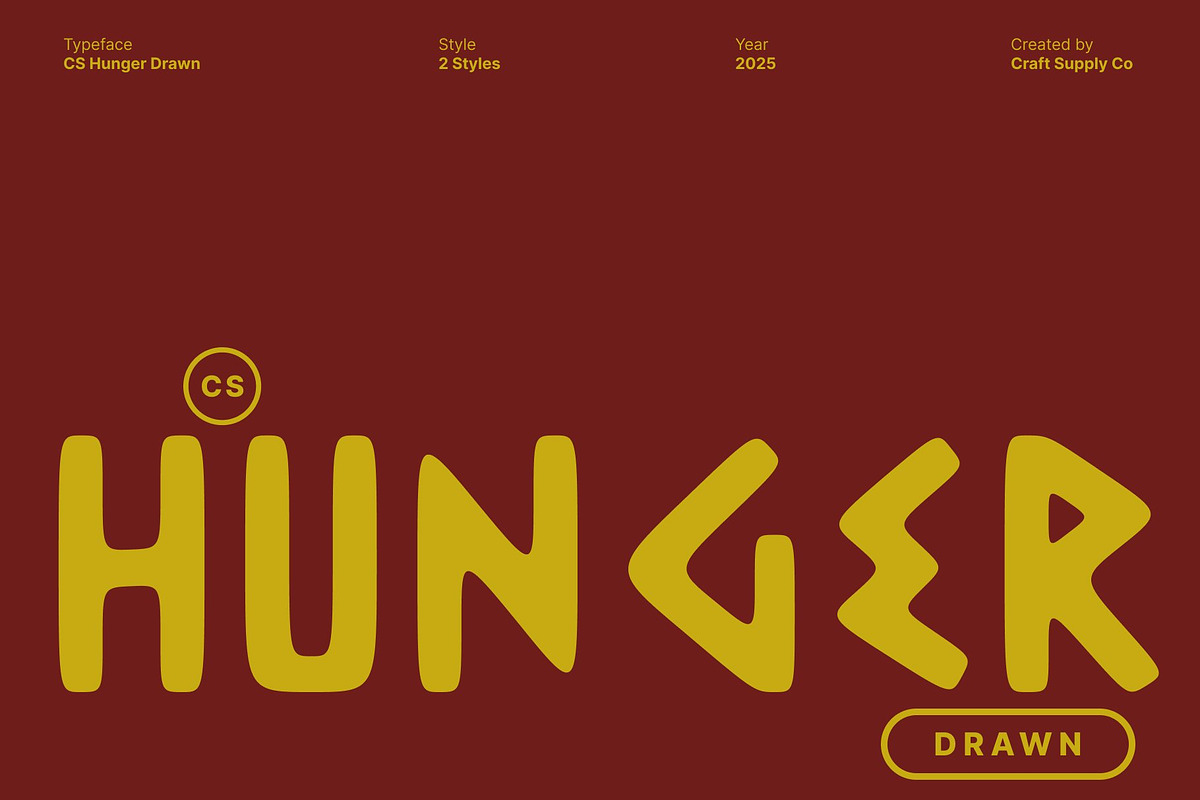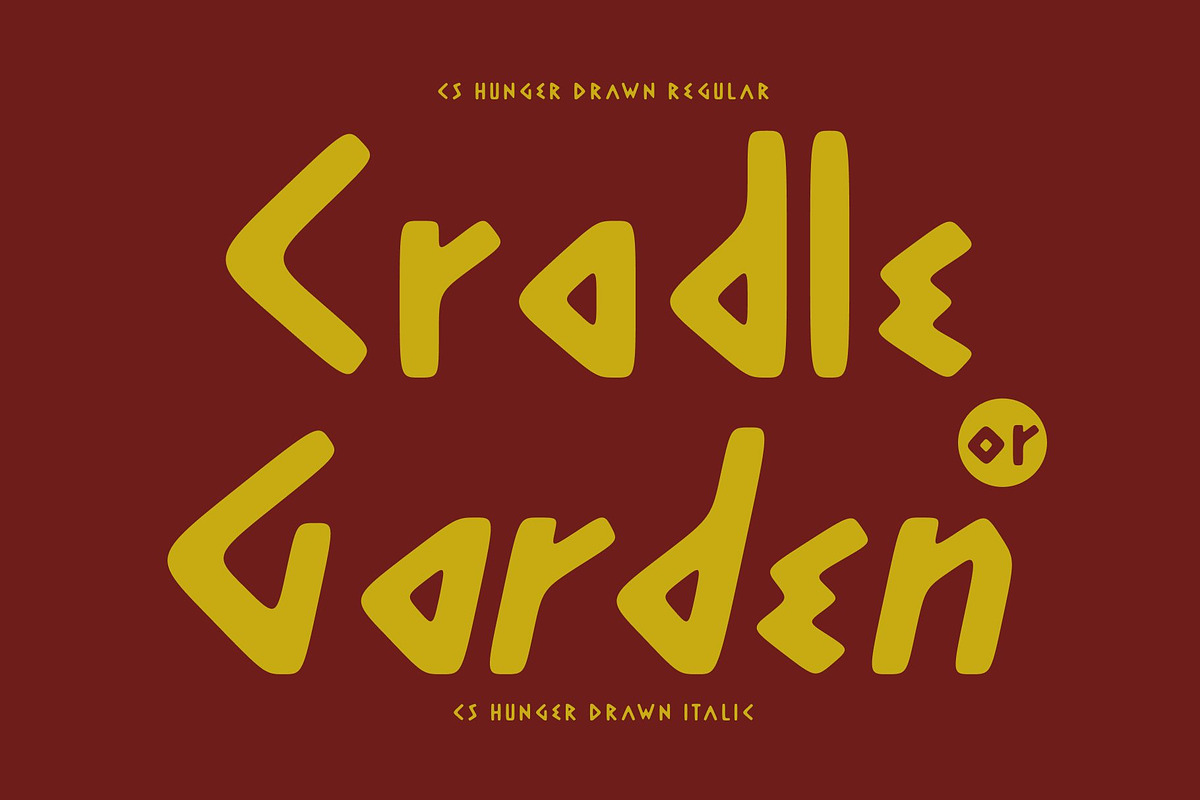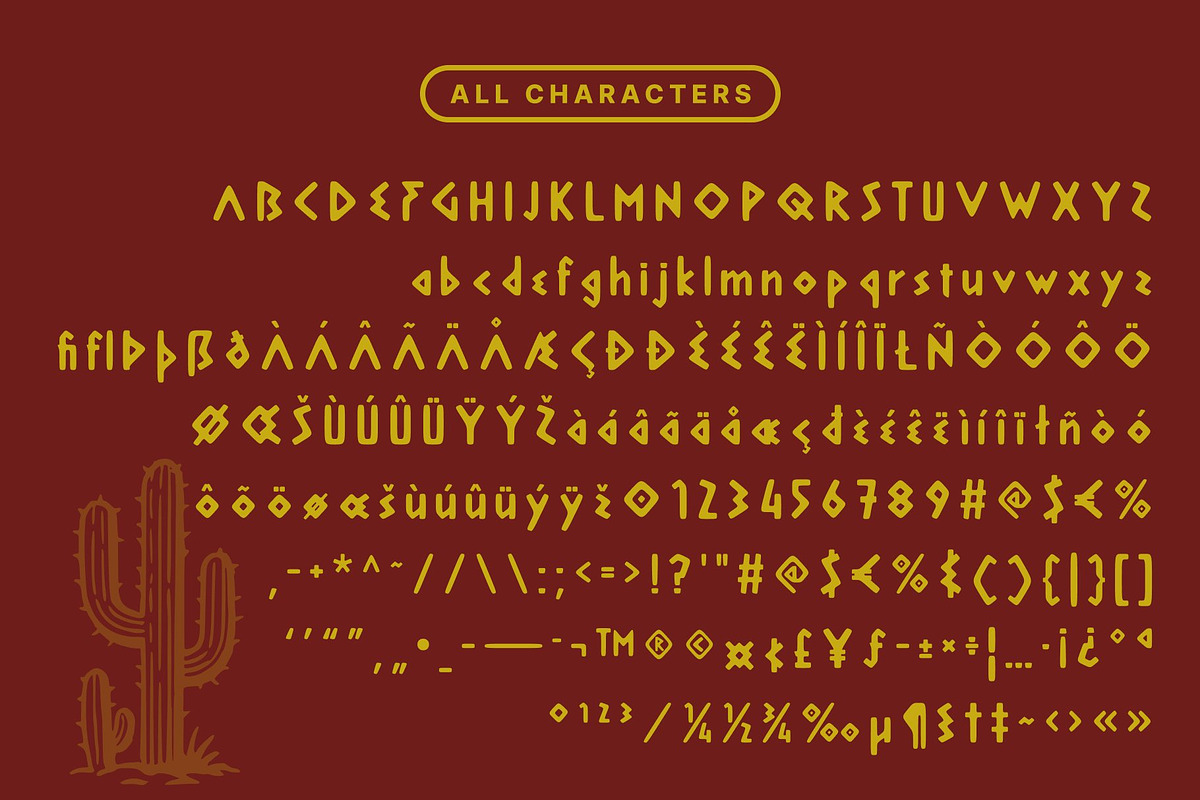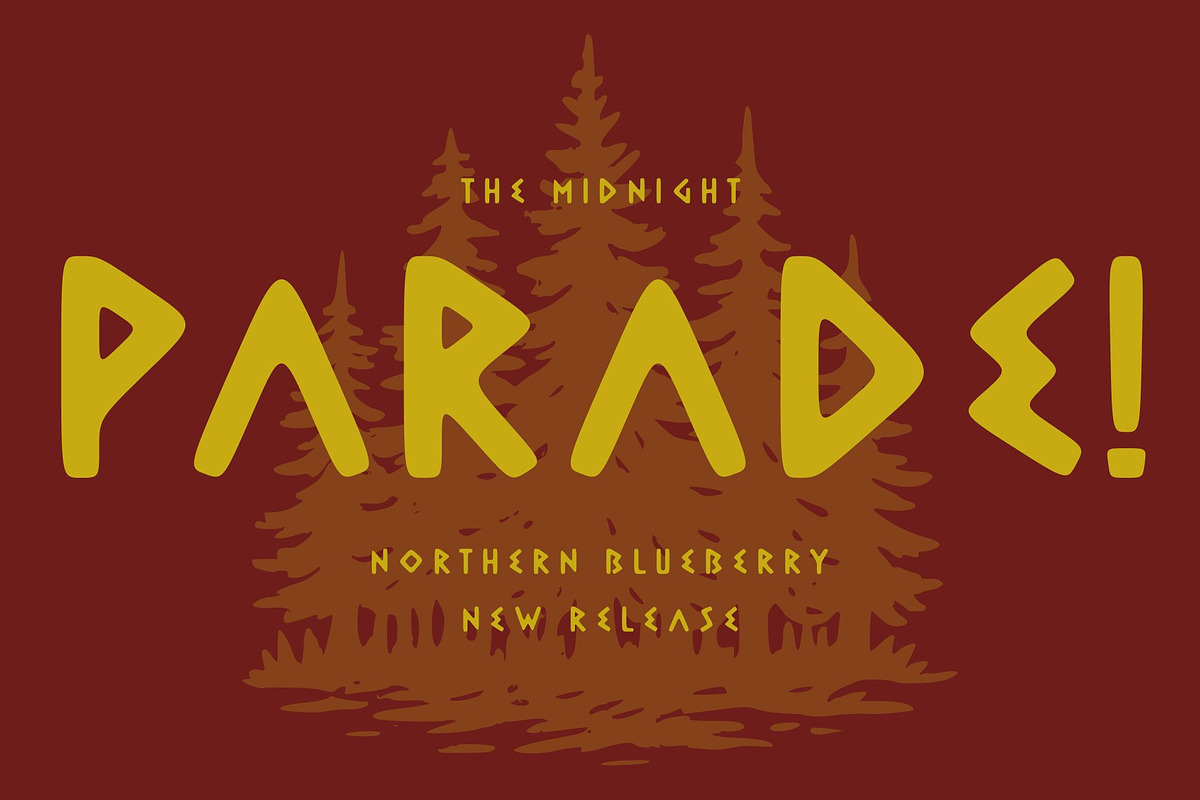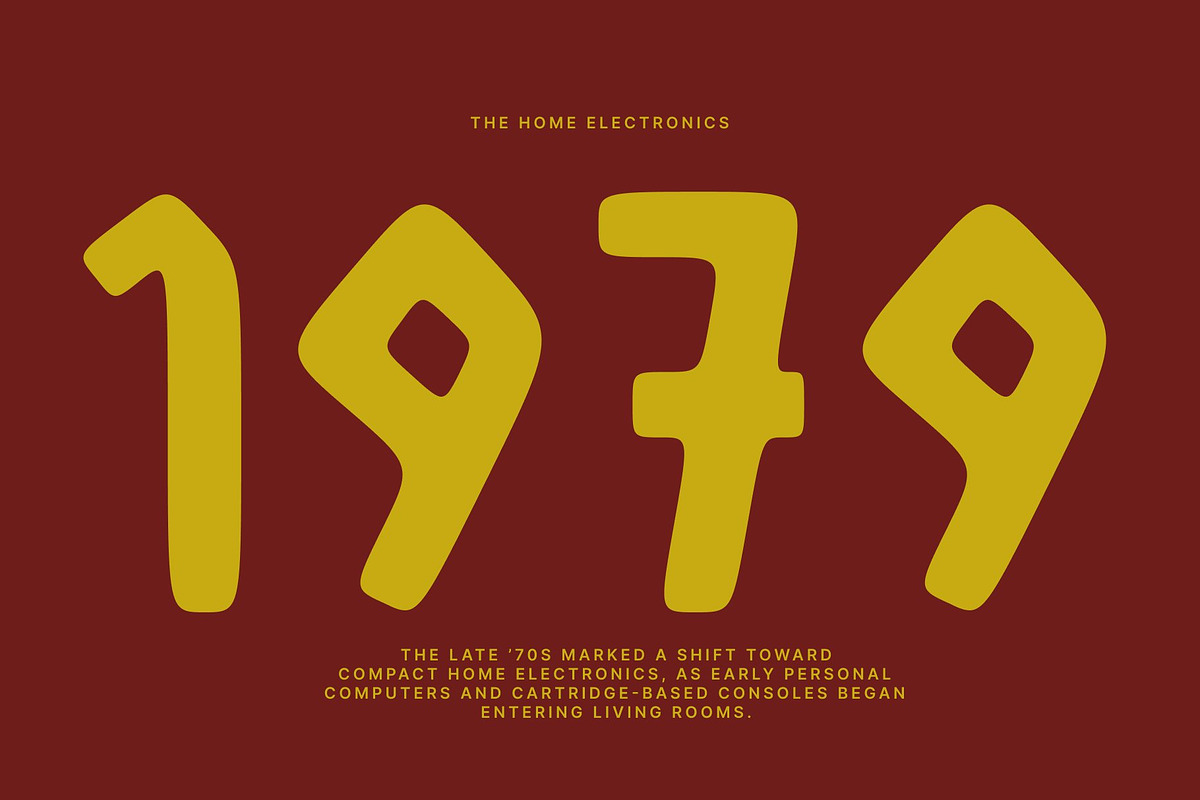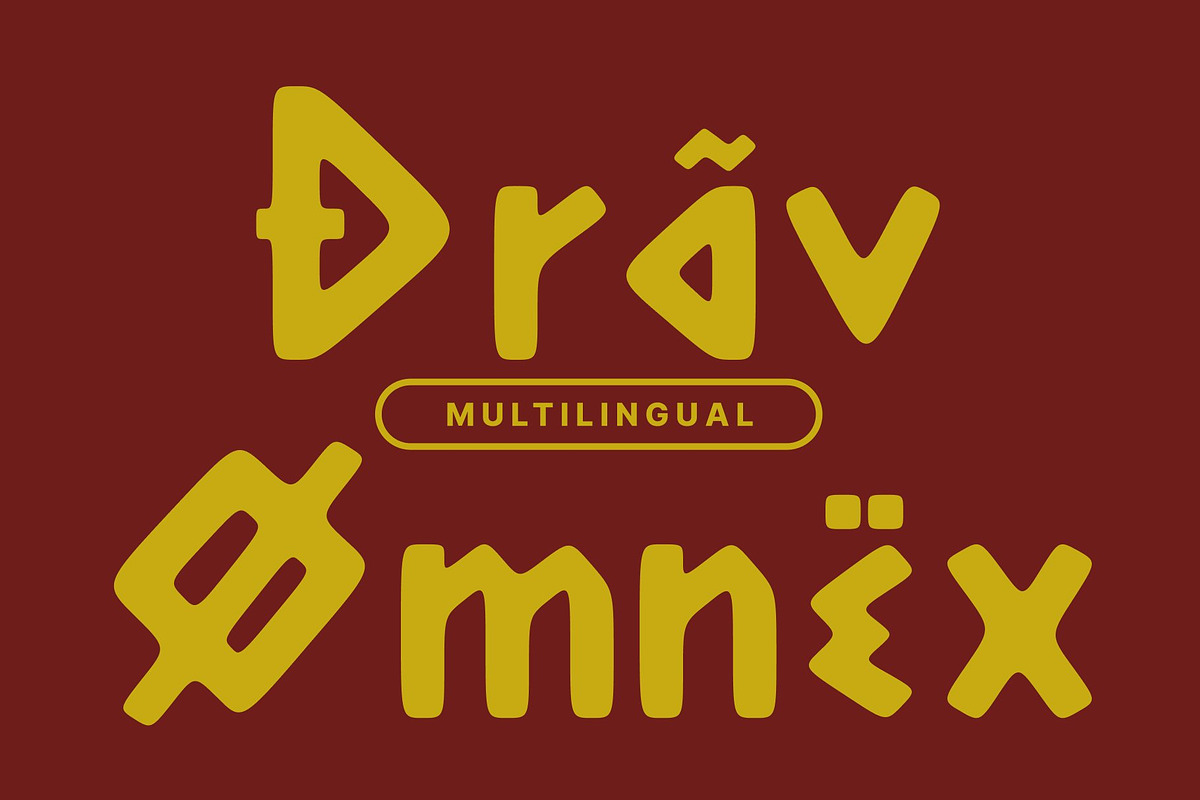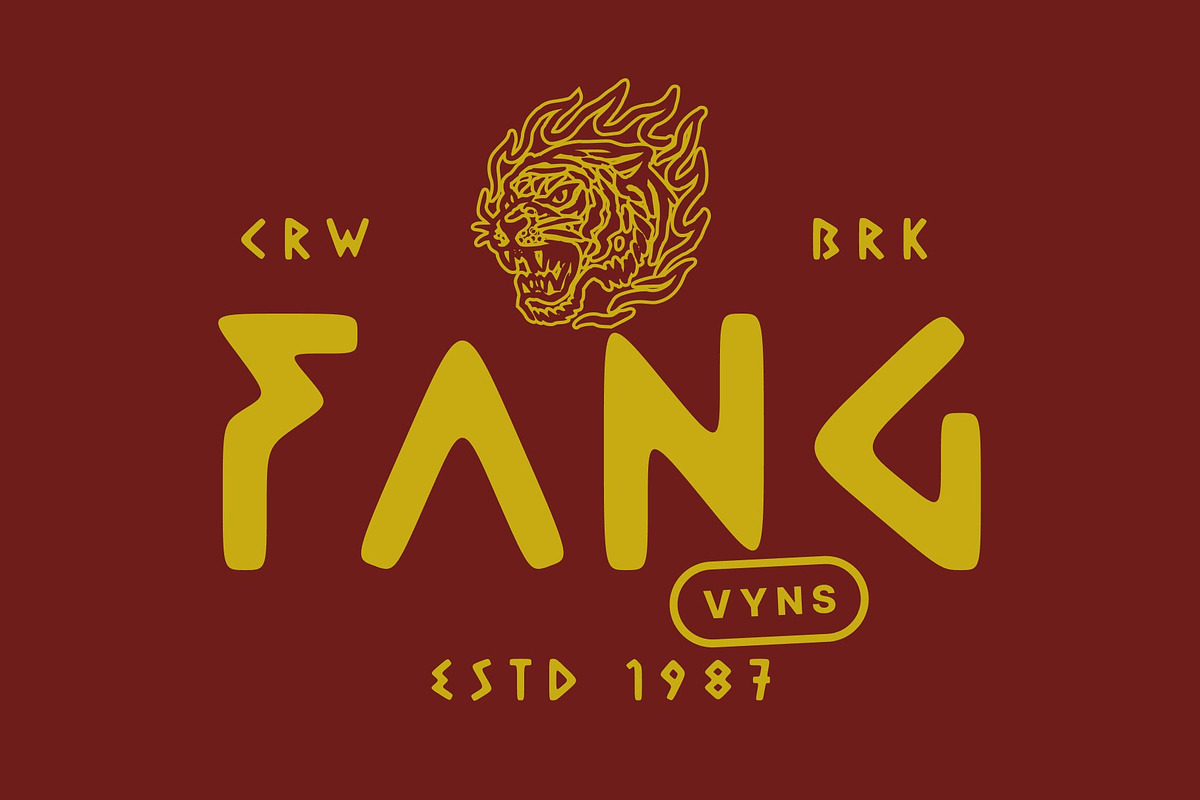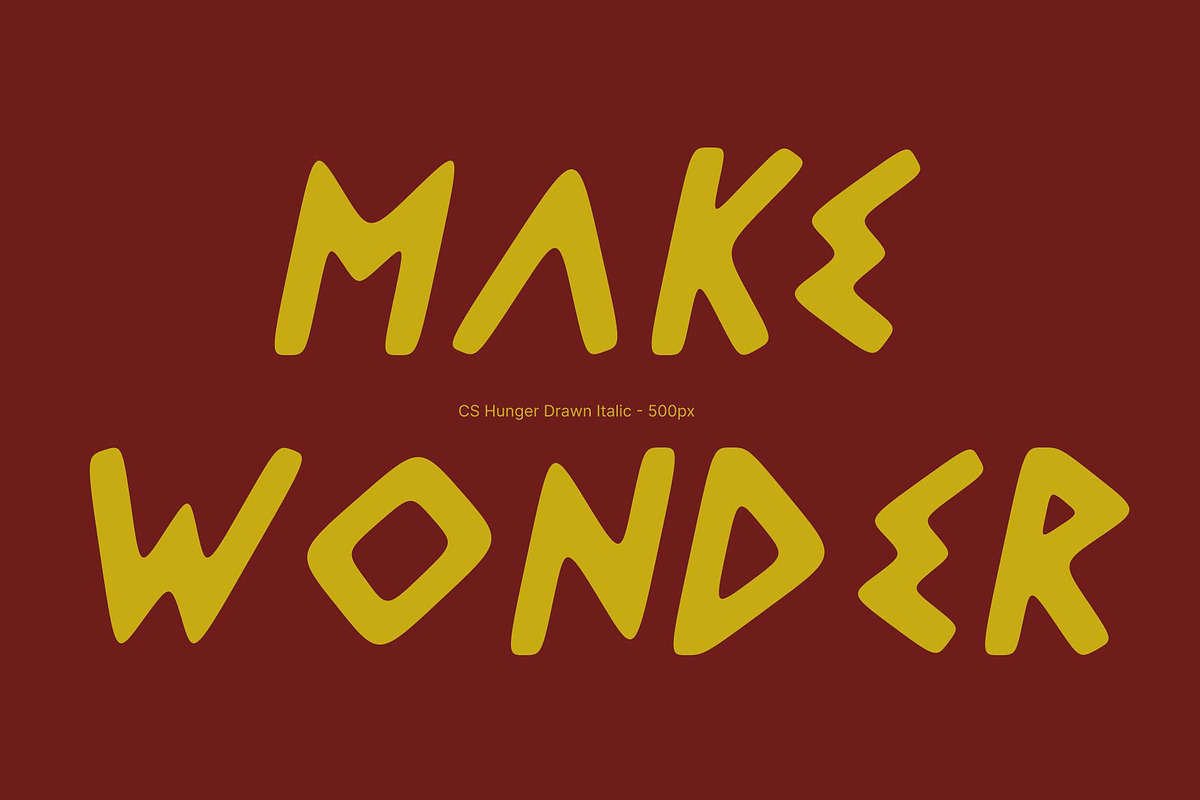
CS Hunger Drawn
CS Hunger Drawn – Greek Inspired Bold Sans Serif with Vintage Hand-Drawn Texture
Historical Strength with Geometric Precision This is a Greek-inspired bold sans serif font that evokes the timeless power of ancient stone carvings. Its geometric forms and structured lines provide a strong, authoritative presence, making it ideal for projects that require both clarity and historical gravitas.
Hand-Drawn Effect for Vintage Softness The drawn effect gives this font a handcrafted, vintage appearance. Subtle textures and organic irregularities mimic the natural imperfections of hand-chiseled stone, softening the bold geometric structure and adding depth and character. This artistic touch transforms the font into a versatile display typeface that feels both historical and approachable.
Perfect for Editorials, Branding, and Timeless Designs This font excels in projects that seek a balance of strength. It is perfect for editorial layouts, logos, packaging, and branding that require a classic yet contemporary feel. The combination of bold structure and vintage softness makes it suitable for timeless design projects where authenticity and impact are key.
A Typeface That Marries Strength and Artistry Designed for designers who want to evoke history with a modern touch, this font combines geometric precision with soft, hand-drawn charm. Its Greek-inspired forms and vintage texture make every project feel monumental yet nuanced.
- CS Hunger Drawn Regular
- CS Hunger Drawn Italic